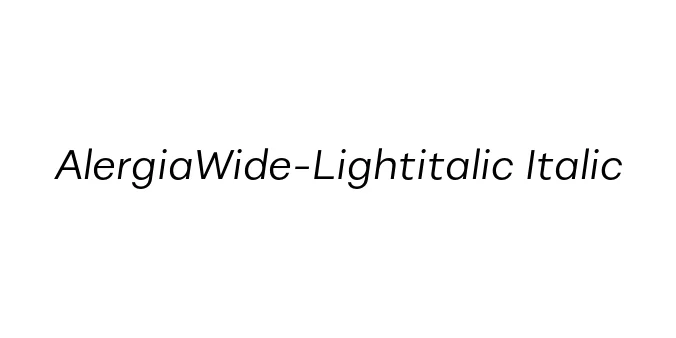
AlergiaWide-Lightitalic Italic
Designed by Mateusz Machalski
Alergia Wide Light Italic is a contemporary sans-serif typeface designed by the renowned Polish typographer Mateusz Machalski. This font is a key part of the larger Alergia superfamily, which explores the relationship between geometric structure and humanistic touches. The 'Wide' variant emphasizes horizontal expansion, providing a spacious and airy feel that commands attention without being overwhelming. Its slanted italic form adds a dynamic sense of motion, making it a versatile choice for modern design projects.
The design of Alergia Wide draws inspiration from early 20th-century geometric types but adapts them for the high-resolution requirements of the 21st century. The Light Italic weight is particularly prized for its sophisticated profile, making it a favorite for high-end editorial layouts, corporate identities, and minimalist web design. Its clean lines and unique character terminals ensure that it remains readable while offering a distinct personality that stands out from more generic sans-serif options.
AlergiaWide-Lightitalic Italic Best Uses
Perfect for sleek and modern titles in luxury branding.
Ideal for pull quotes and feature articles in digital magazines.
Great for creating distinct, wide-set brand identities.
Excellent for hero sections and stylistic sub-headers.